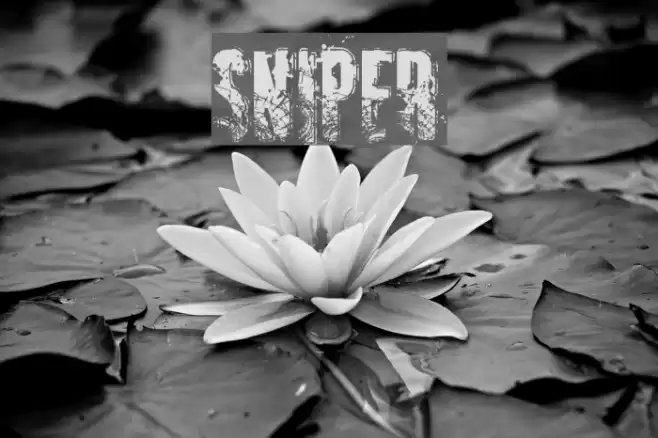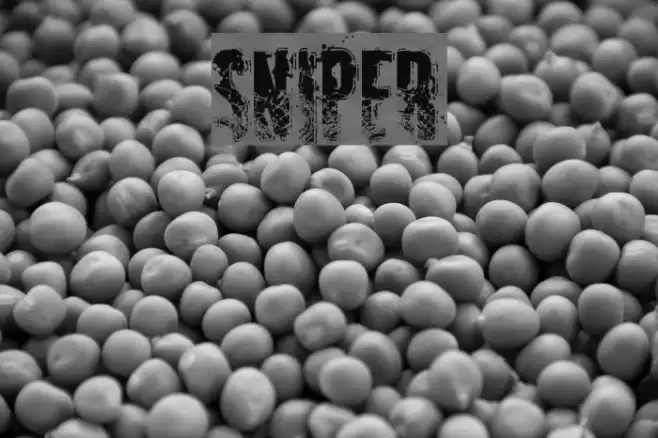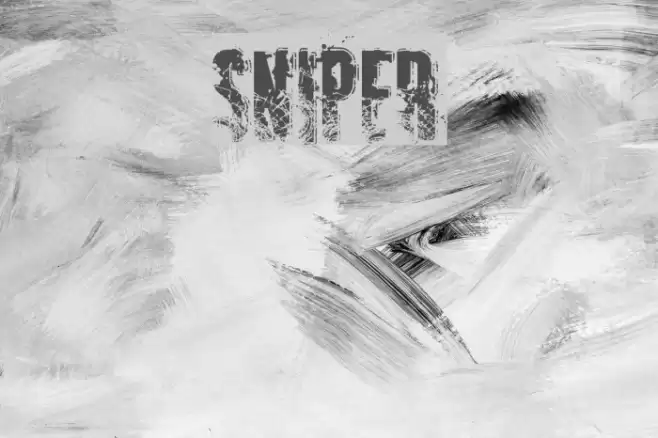
SNIPER Font
SNIPER Description
This font features a bold, distressed style with a grunge texture that gives it a rugged and edgy appearance. The uppercase letters are prominently displayed with a rough, splattered effect, creating a sense of chaos and intensity. The characters are tightly spaced, enhancing the compact and impactful look. The font's unique style makes it stand out, suitable for projects that require a strong, rebellious aesthetic. The distressed texture adds depth and character, making it ideal for designs that aim to convey a sense of raw energy and dynamism.
A bold, distressed font with a grunge texture and tight spacing from Uncategorized fonts.
- Proposed Projects: Ideal for music album covers, event posters, urban-themed designs, and branding that requires a gritty, rebellious look.
- Character Spacing: Tight
- Overall Style: Grunge, Edgy, Distressed
- Use Case: Headlines, Posters, Branding